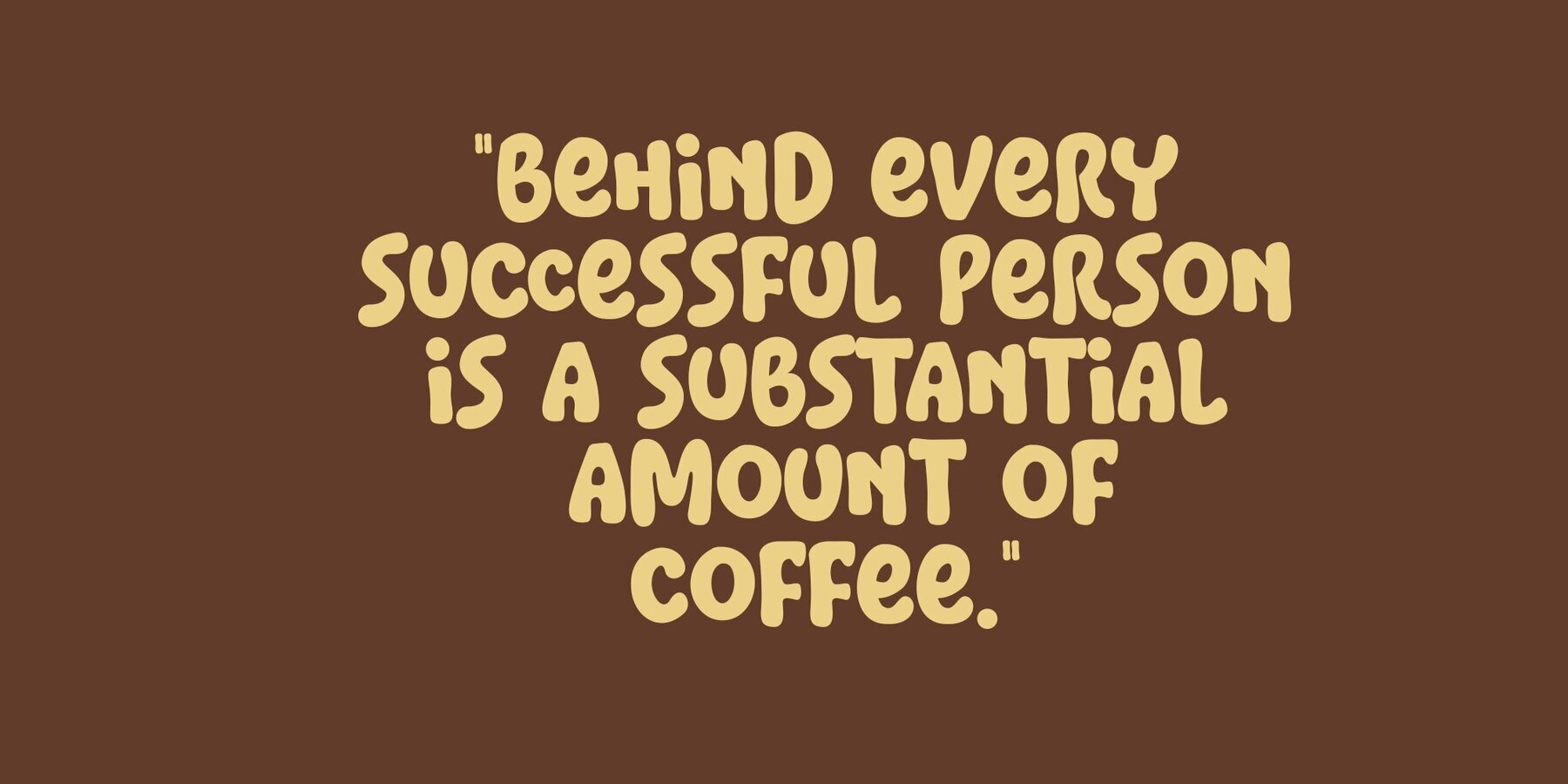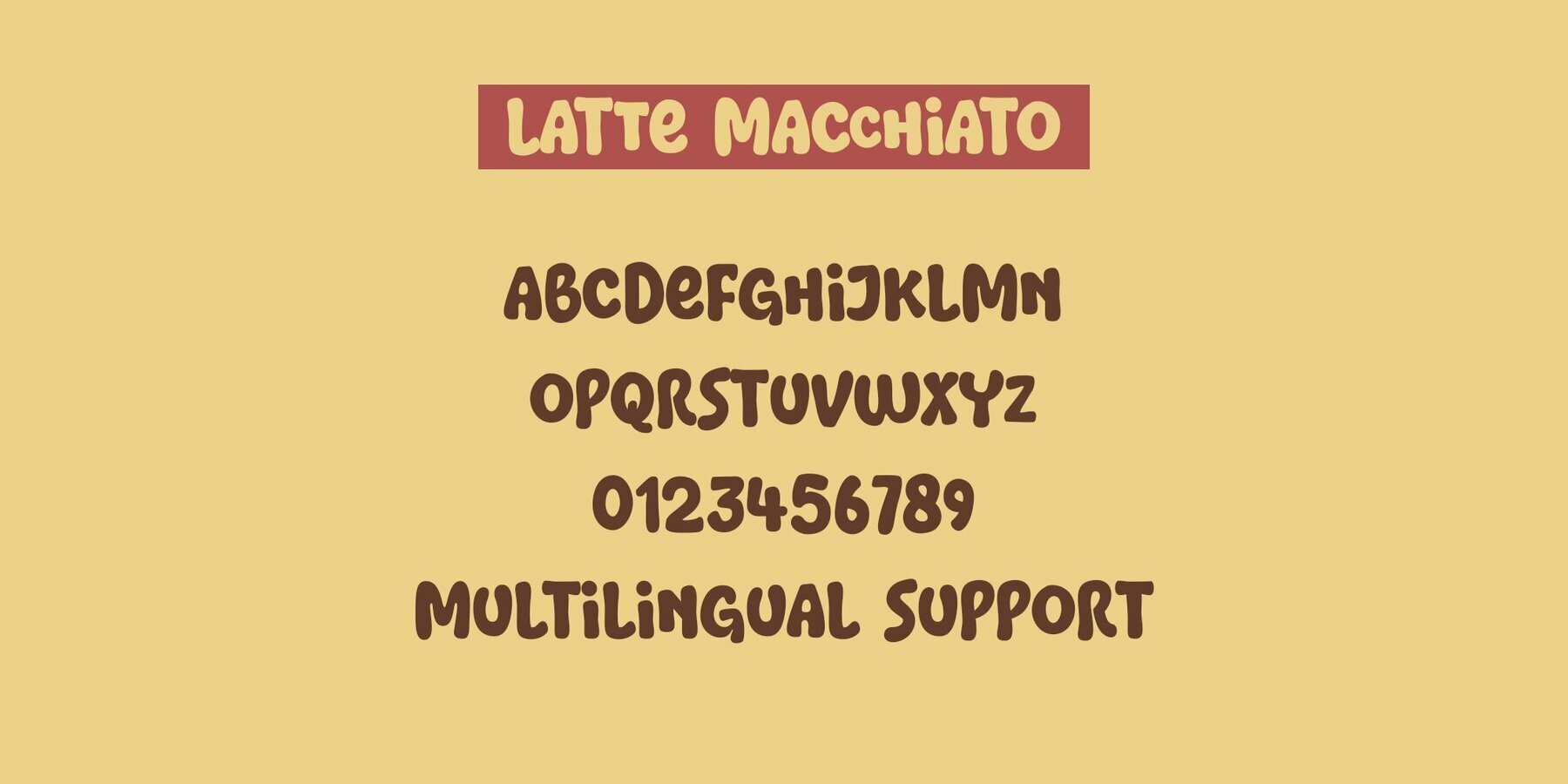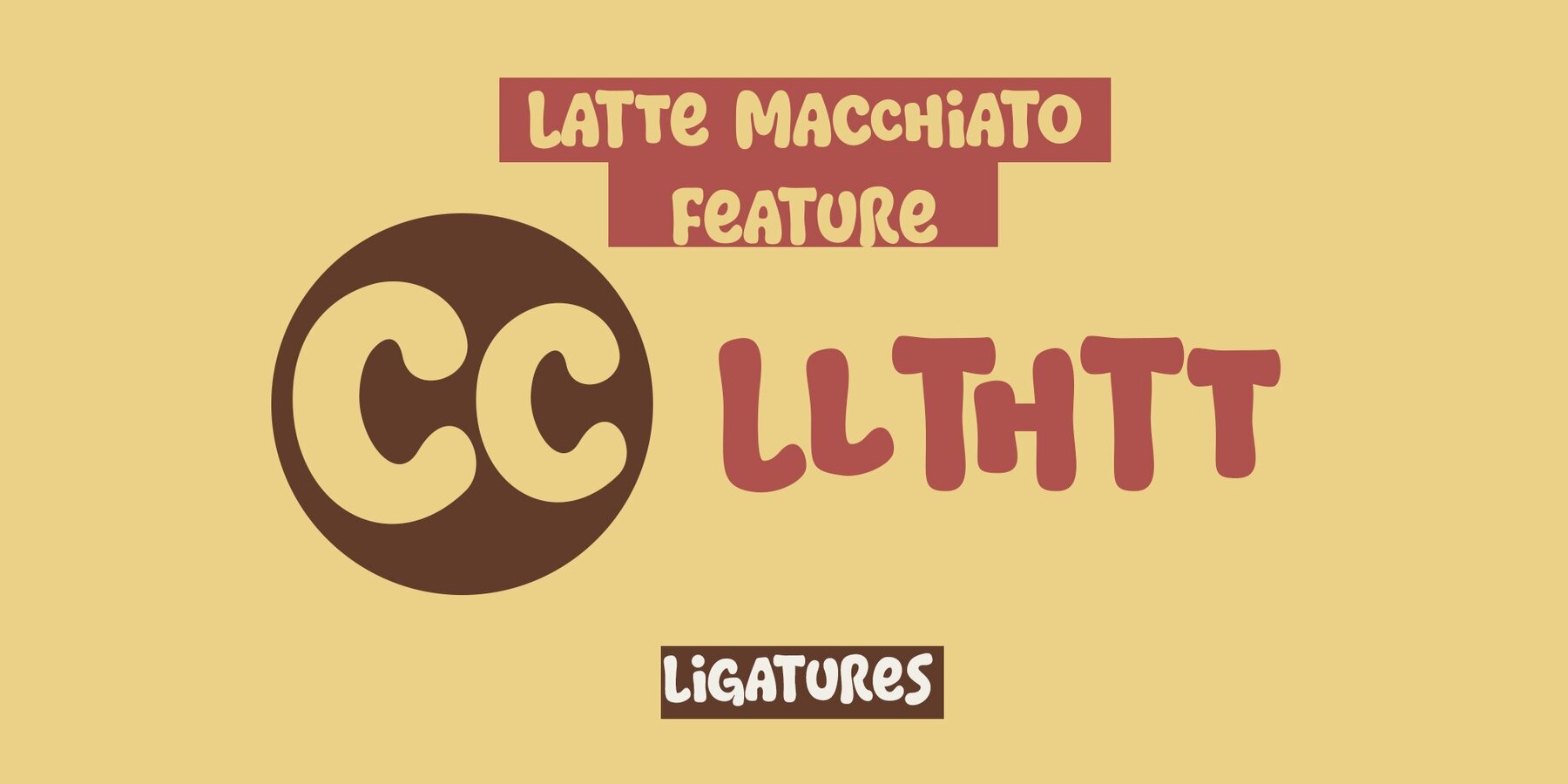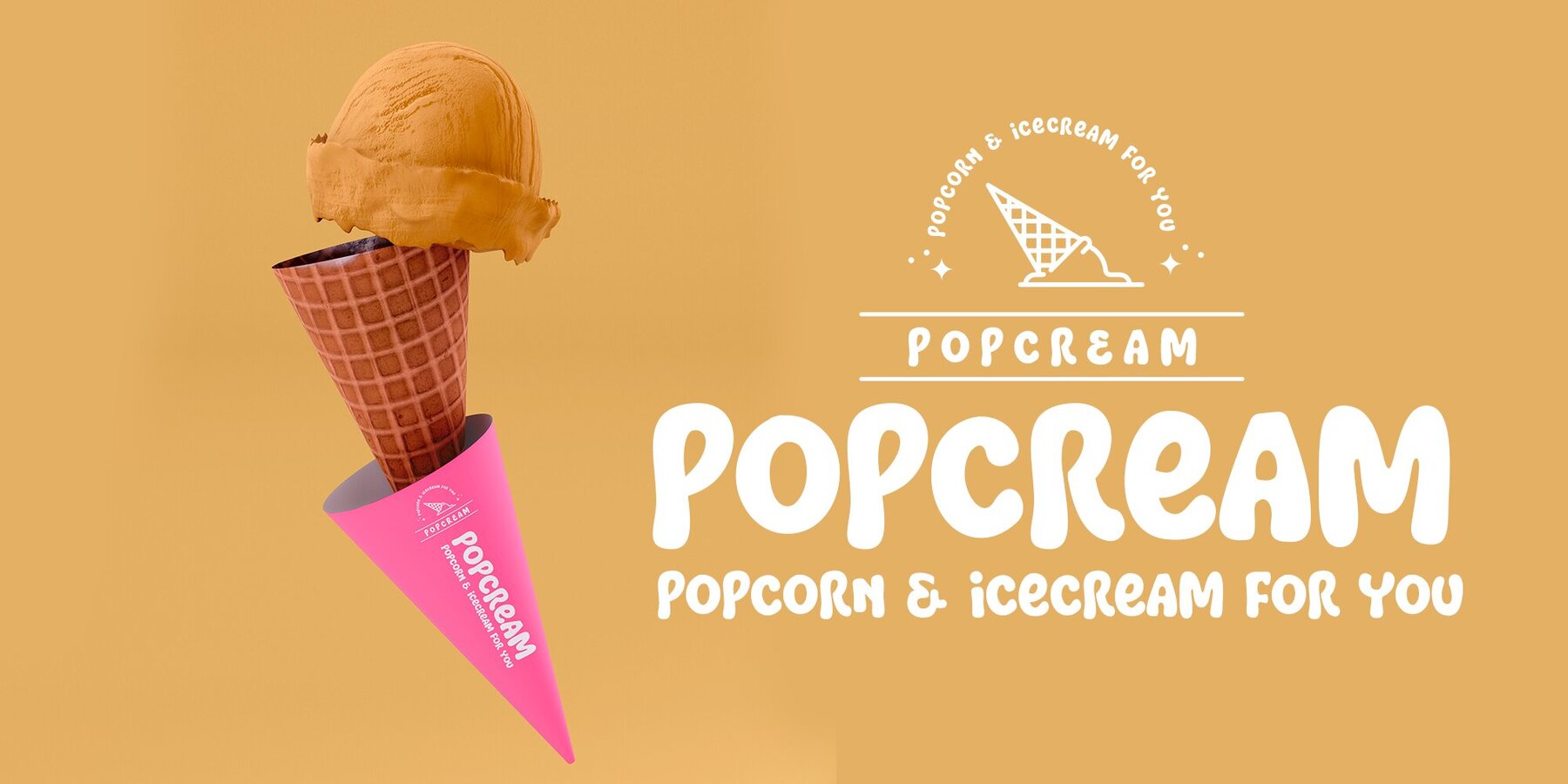
Latte Machiato Font
Latte Macchiato
Latte Macchiato is a delightful and playful font perfect for a variety of creative projects. Whether you’re working on craft projects, designing SVG files, or adding a unique touch to your Procreate artworks, this font will bring a whimsical charm to your creations. It’s also ideal for educators looking to jazz up classroom materials or for crafting engaging social media quotes and posts.
This versatile font works wonderfully on shirts, stickers, and other printable materials, making your designs stand out with a fun and vibrant look. With its cheerful and lighthearted style, Latte Macchiato offers endless possibilities to enhance your creative projects with a distinctive and lively aesthetic.